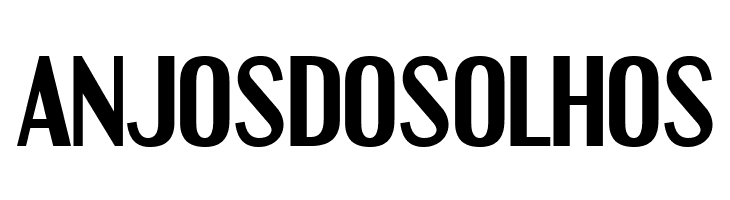
CotrellCFExtraBoldCondensed-Regular Font
- Font: CotrellCFExtraBoldCondensed-Regular
A bold, modern font with strong vertical strokes and slightly condensed letterforms.